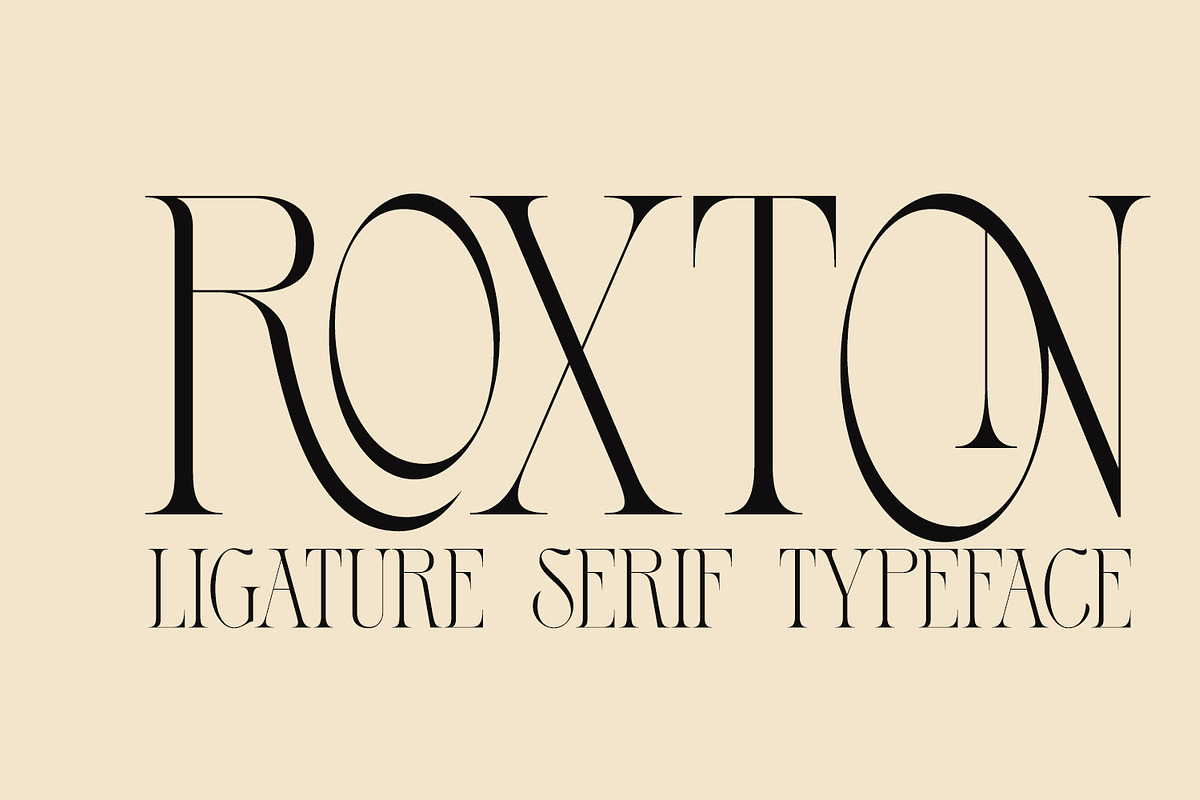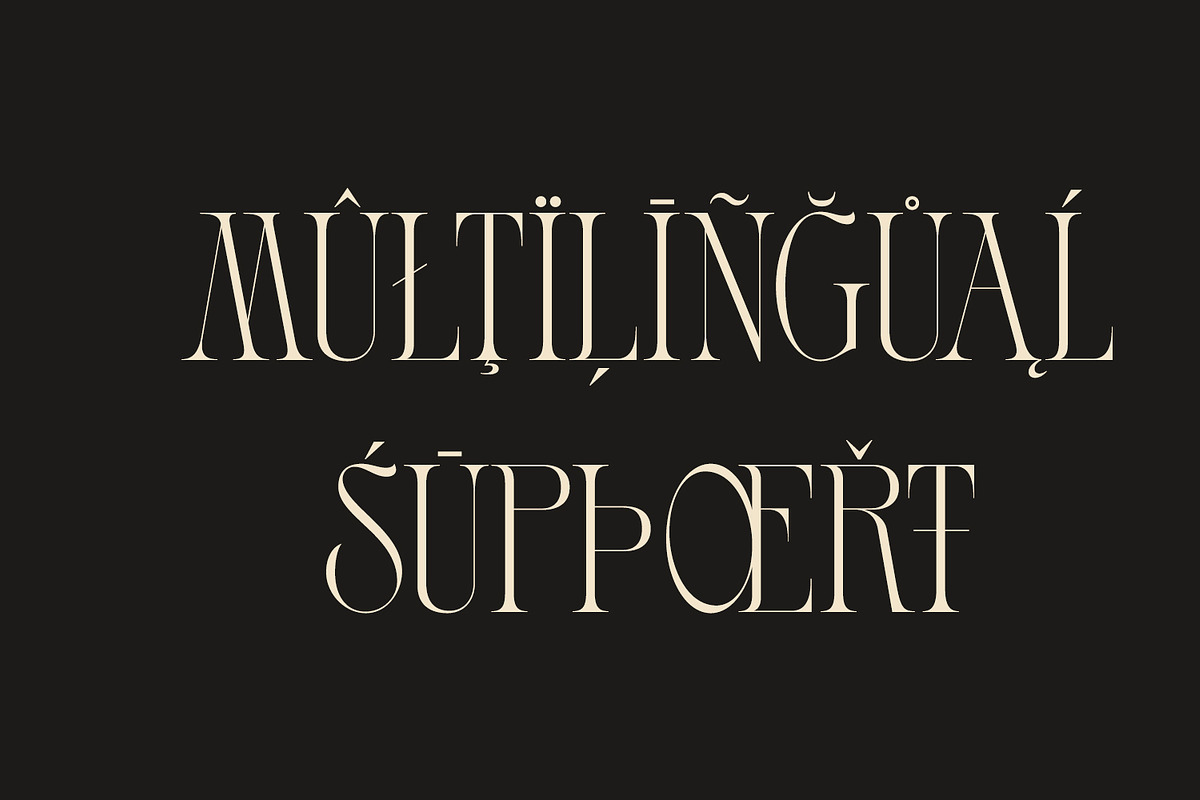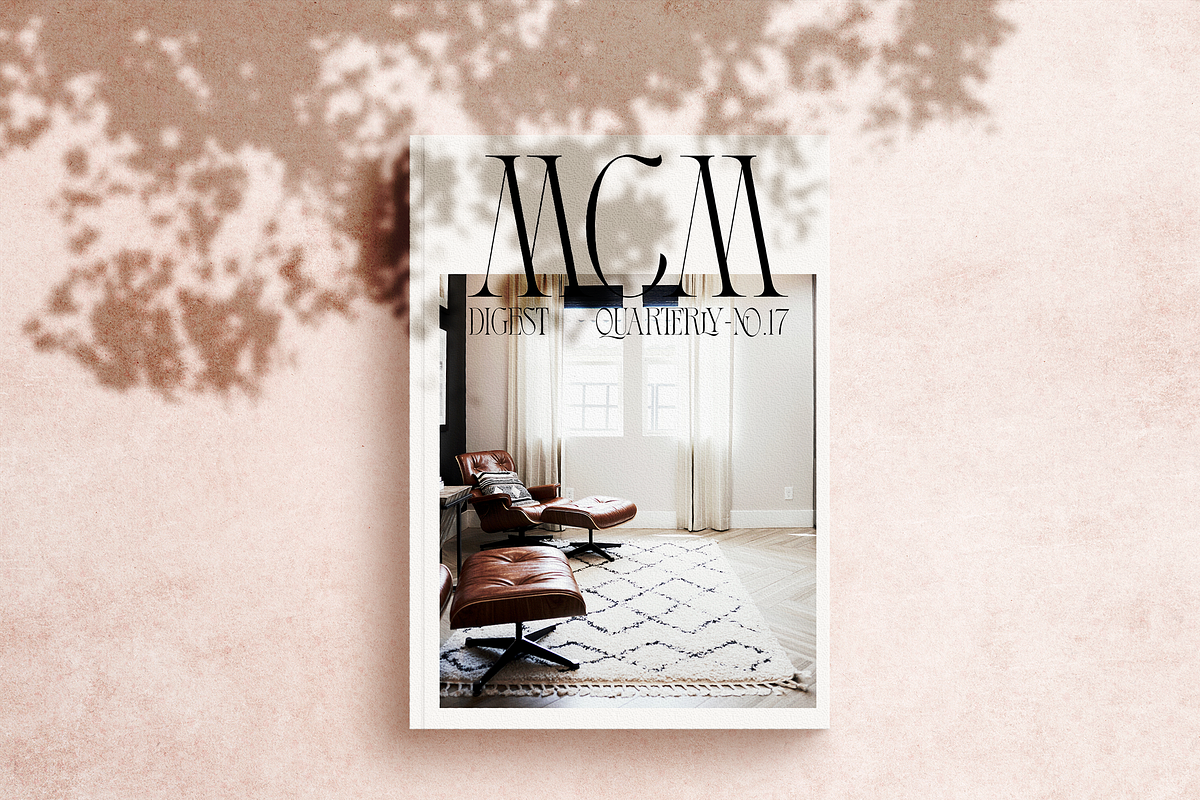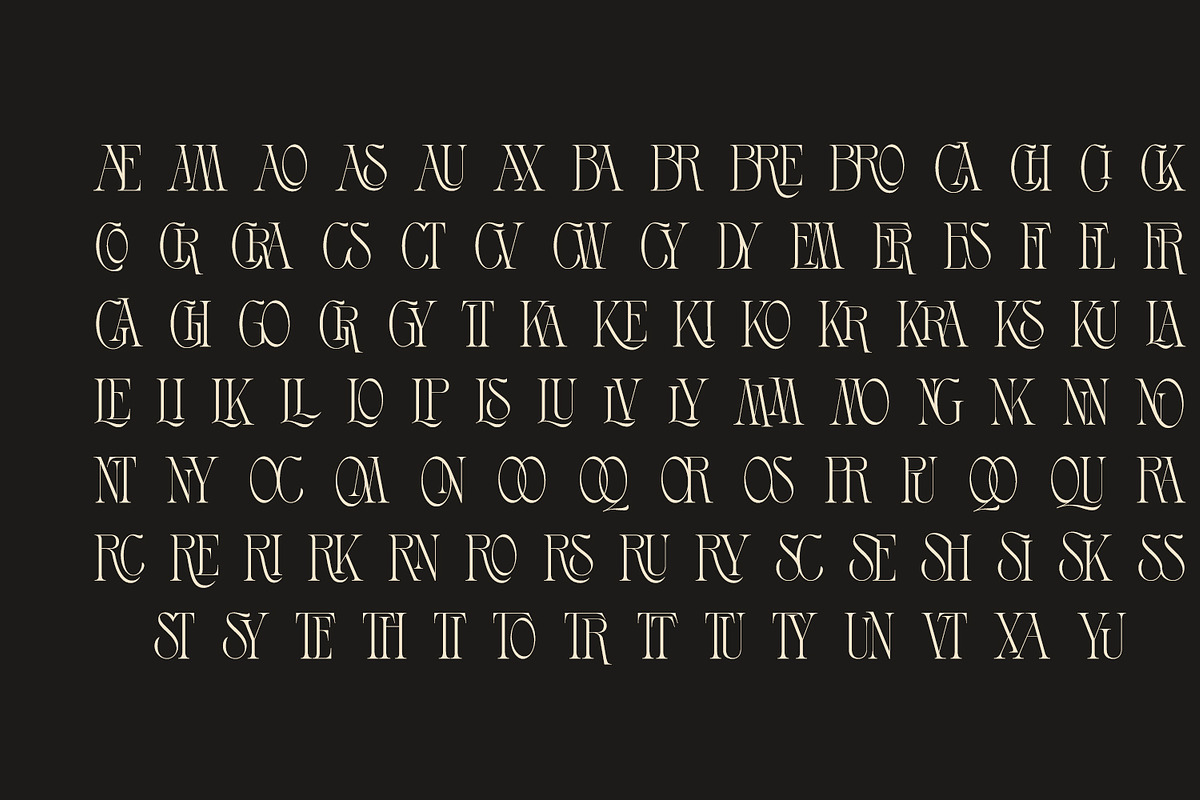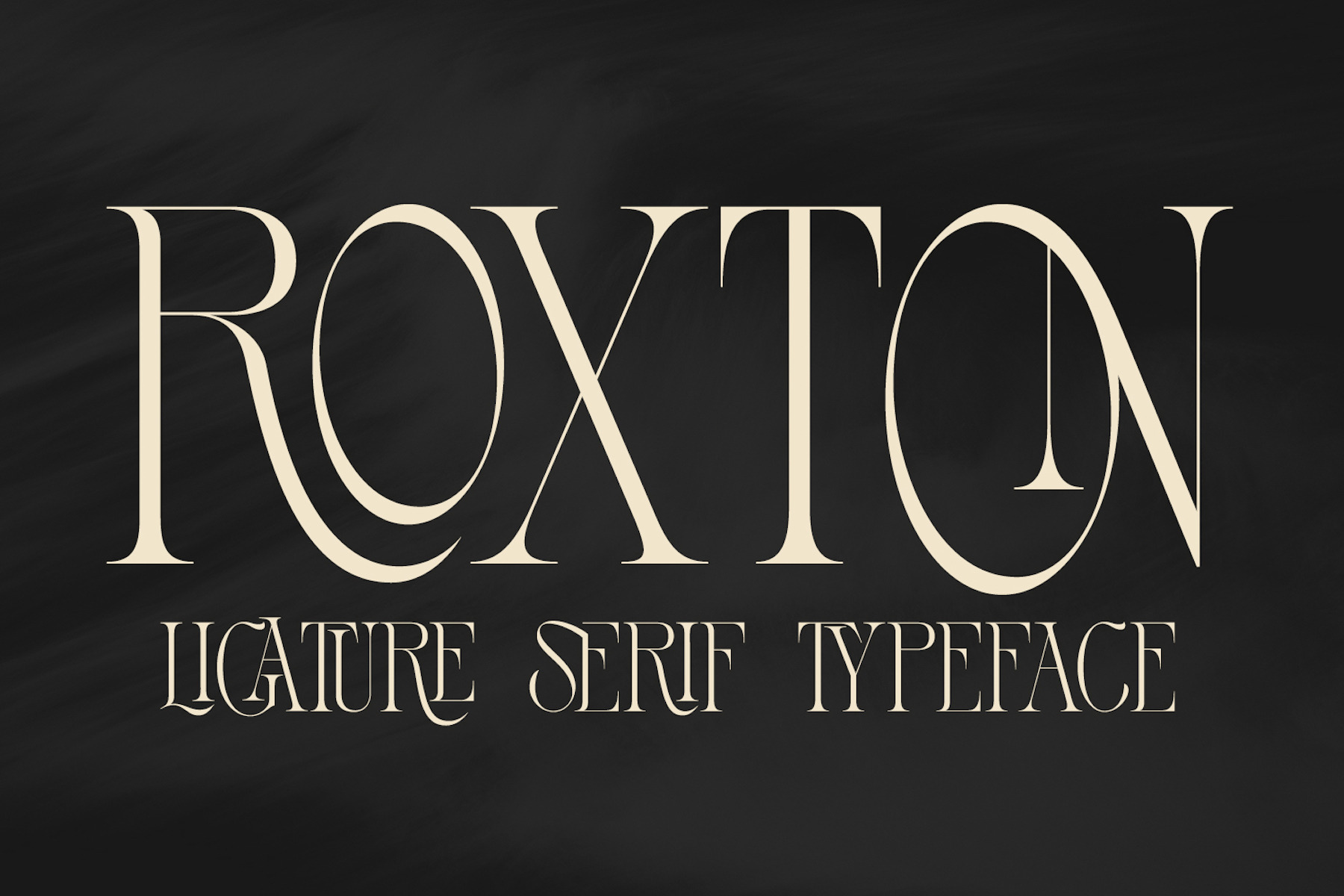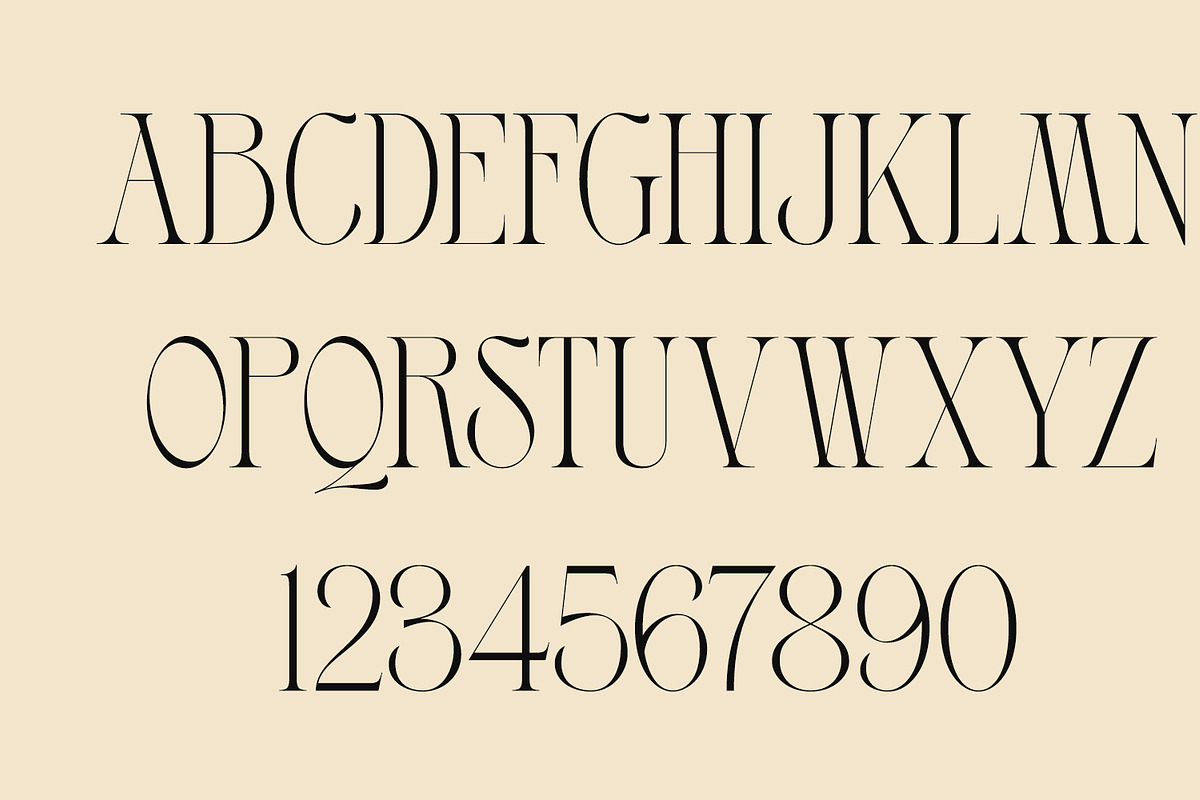
Roxton - Elegant Ligature Serif Font
Roxton is a feature-filled elegant display serif that you'll be reaching for over & over again!
This typeface includes a massive selection of ligatures, making it perfect for a variety of creative projects such as logo design, content creation, packaging designs, stationery & so much more.